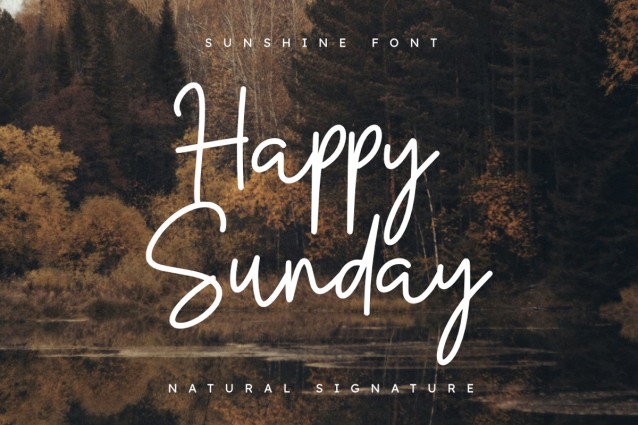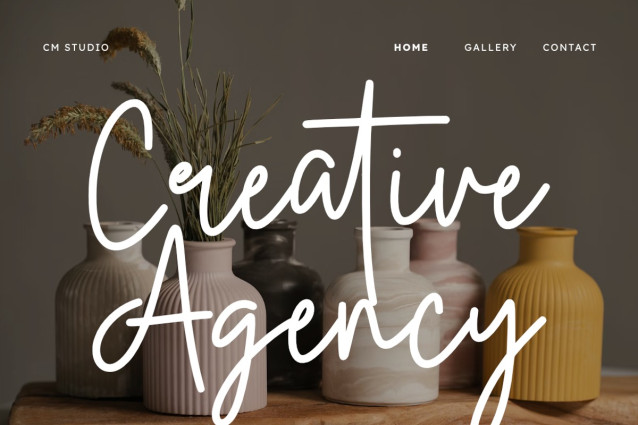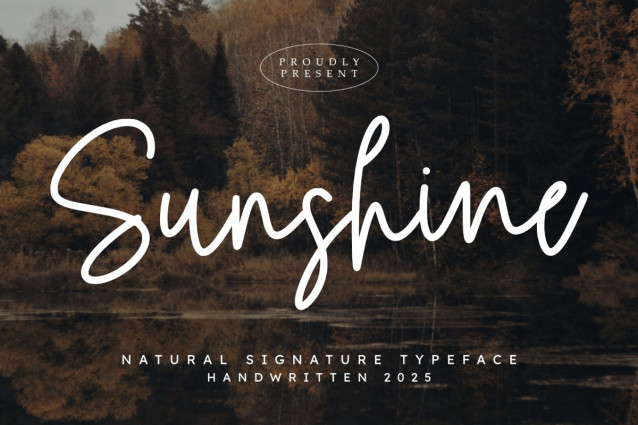
Sunshine Handwriting Font
Sunshine Handwriting Font a touch of warmth and authenticity to your work with Sunshine, a natural signature typeface from Masyafi Studio. Designed to mimic the effortless flow of a hand-penned note, Sunshine brings a relaxed yet elegant vibe to any creative project.
Whether you’re a photographer looking for the perfect watermark, a bride-to-be designing your own invitations, or a brand stylist crafting a unique identity, Sunshine offers the versatility and charm you need. Its rhythmic curves and natural ligatures create a seamless look that feels truly bespoke.